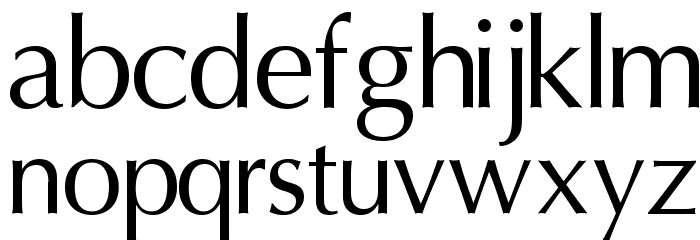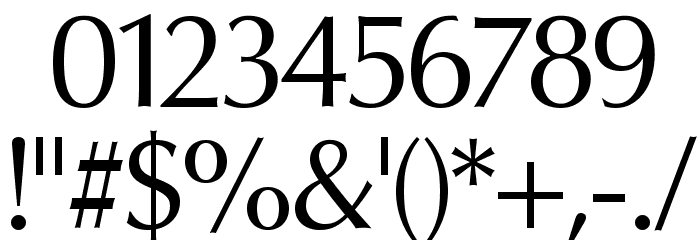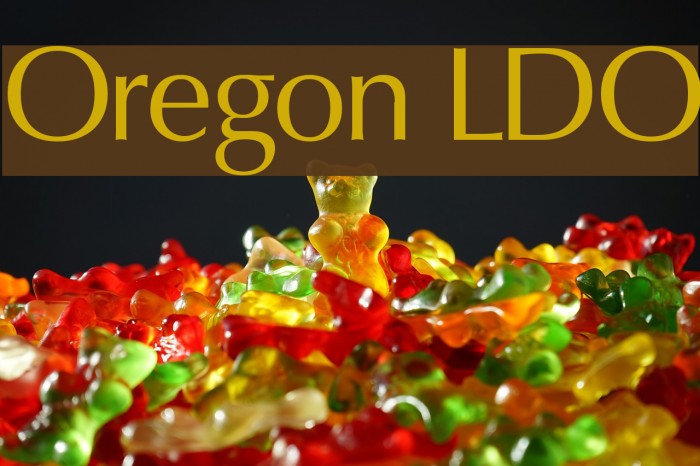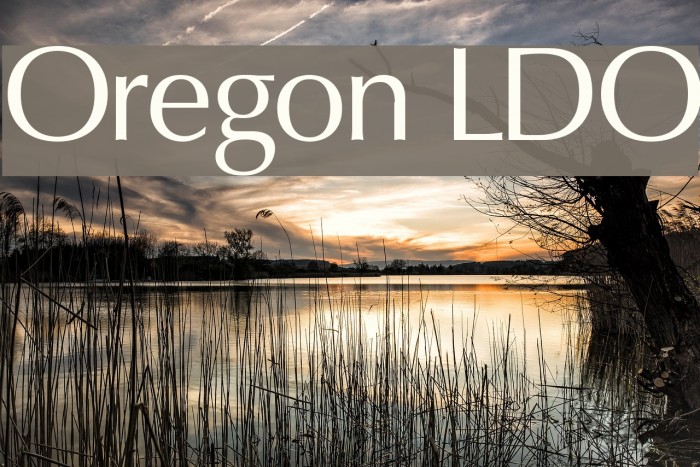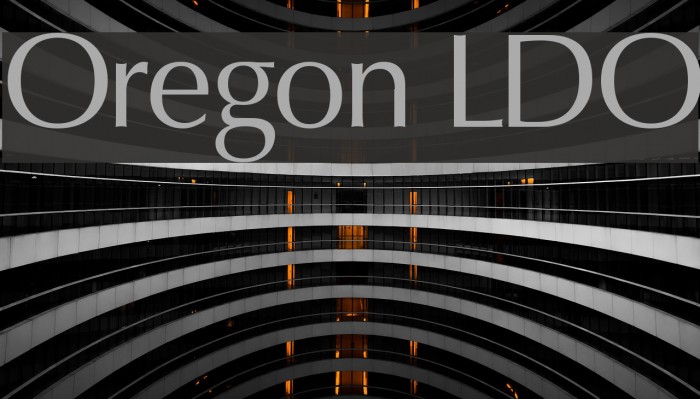
Oregon LDO Font
This font features a clean and modern design with a touch of elegance. The characters are well-proportioned, offering a harmonious balance between the thick and thin strokes, which gives it a medium contrast. The uppercase letters are slightly taller than average, providing a sense of authority and presence. The lowercase letters are designed with smooth curves and a consistent baseline, enhancing readability. The numerals are clear and distinct, making them suitable for both text and display purposes. The special characters are crafted with precision, maintaining the overall aesthetic of the font. This typeface is versatile, suitable for a wide range of applications from editorial design to branding.
A modern, elegant font with medium contrast and smooth curves, ideal for versatile applications.
- Proposed Projects: Ideal for editorial design, branding, advertising, and digital media projects.
- Use Case: Headlines, Body text, Logos